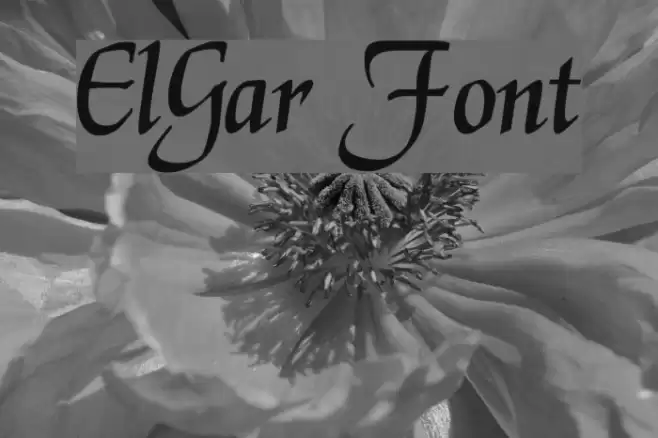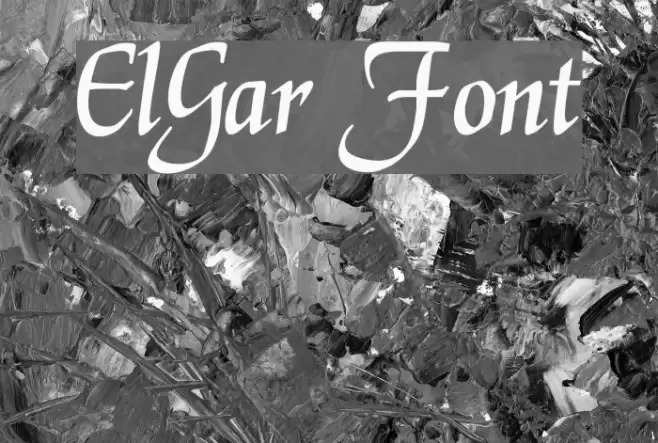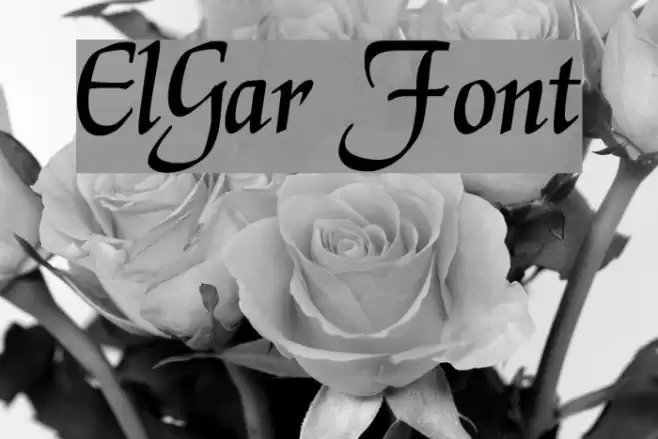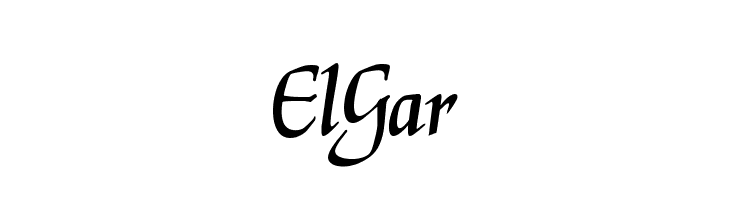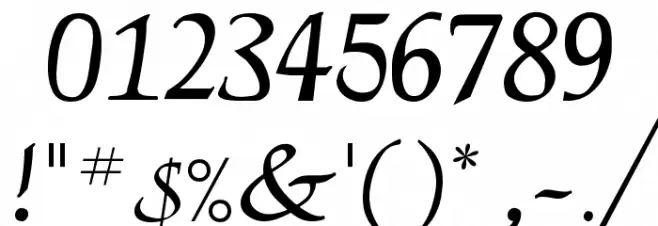
ElGar Font
ElGar Description
This font features a classic and elegant script style with a calligraphic influence. The uppercase letters are characterized by their flowing, cursive forms, which give a sense of movement and grace. The lowercase letters maintain a consistent style, with some characters having distinctive loops and flourishes. The numerals are bold and slightly slanted, complementing the overall script aesthetic. Special characters are designed with the same attention to detail, ensuring they blend seamlessly with the alphabet. This font is ideal for projects that require a touch of sophistication and elegance.
An elegant script font with calligraphic influences and flowing cursive forms from Script fonts.
- Proposed Projects: Wedding invitations, elegant branding, greeting cards, and formal event programs.
- Overall Style: Classic
- Use Case: Logos, Invitations, Decorative text